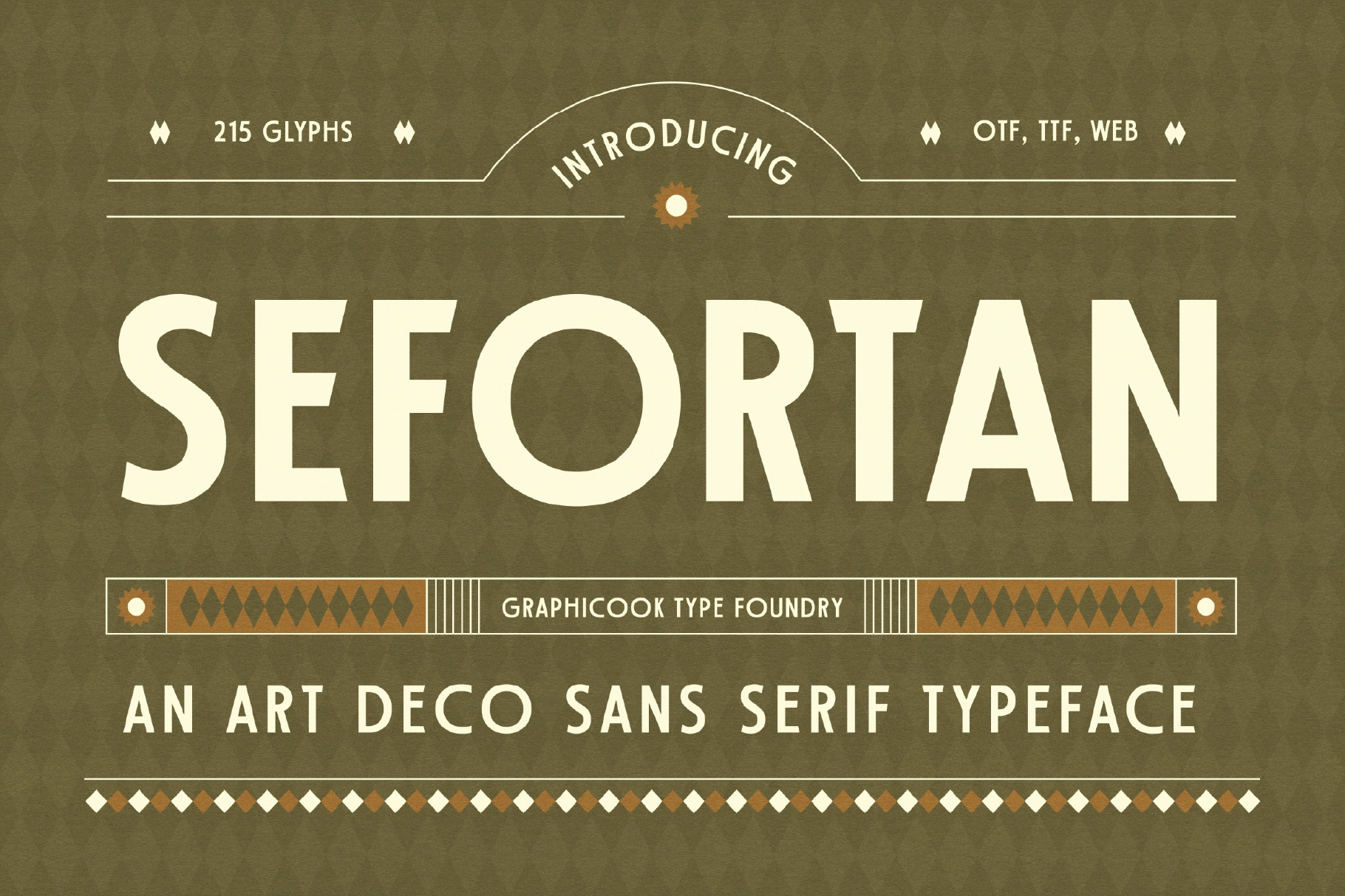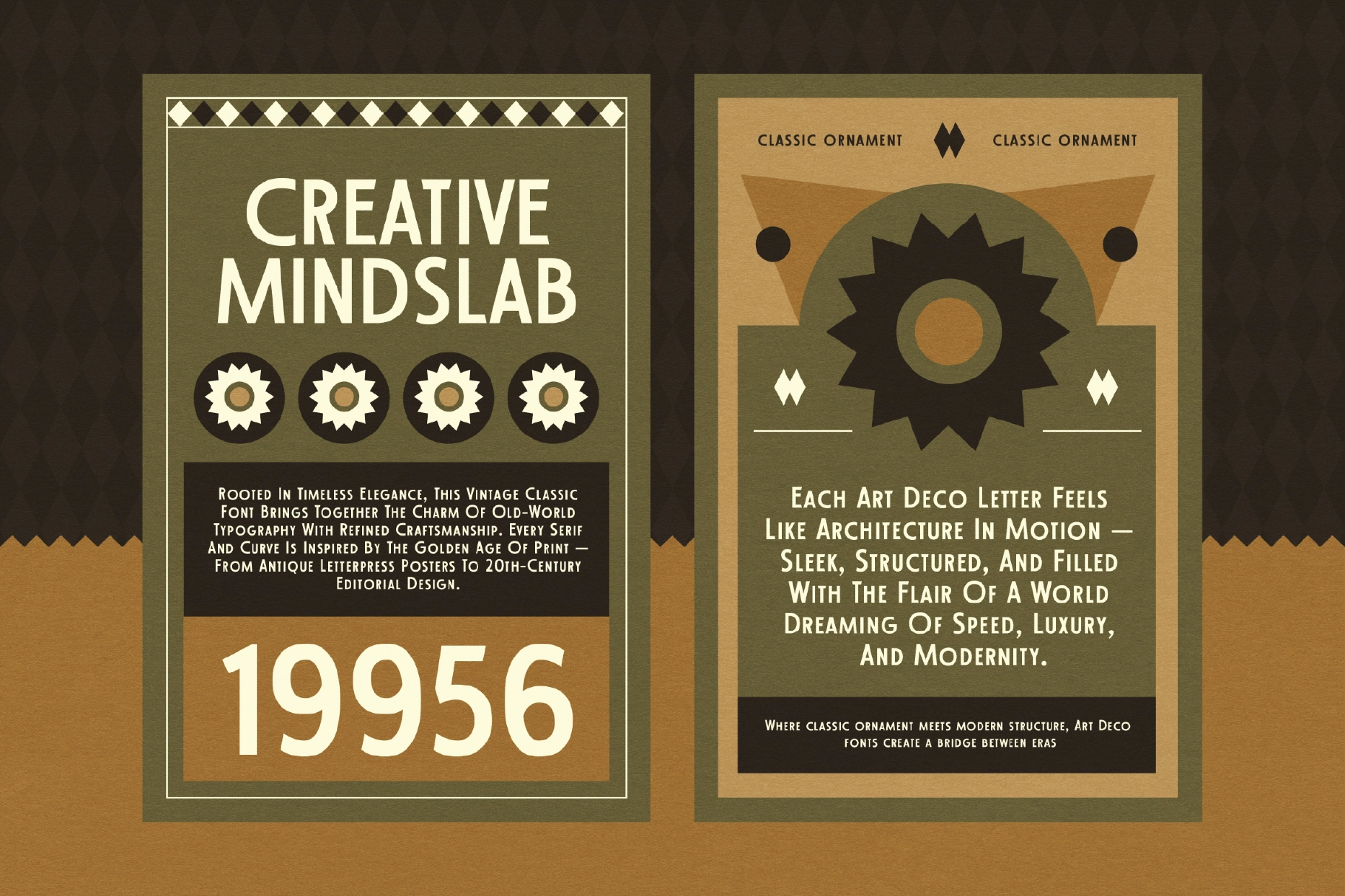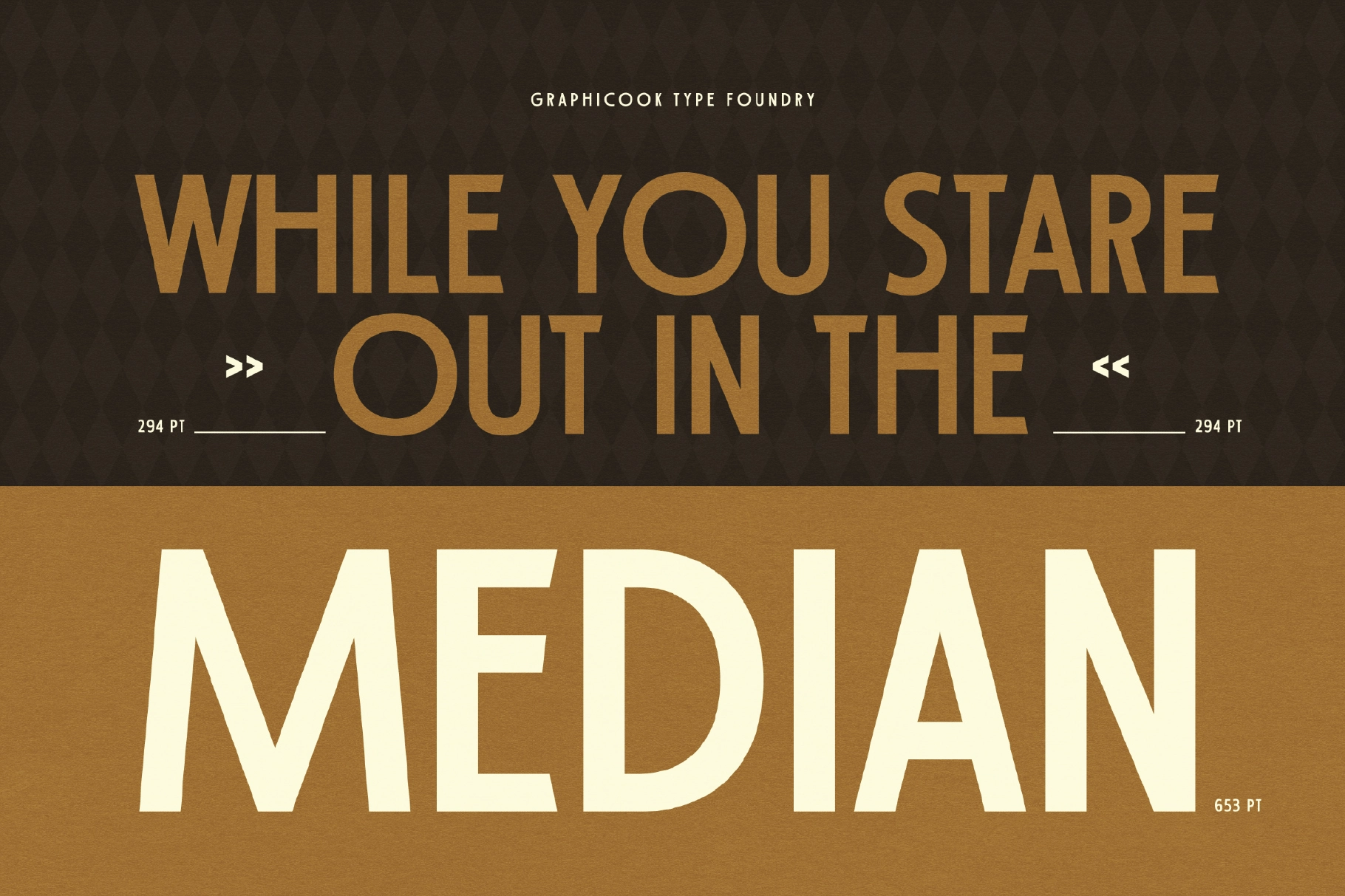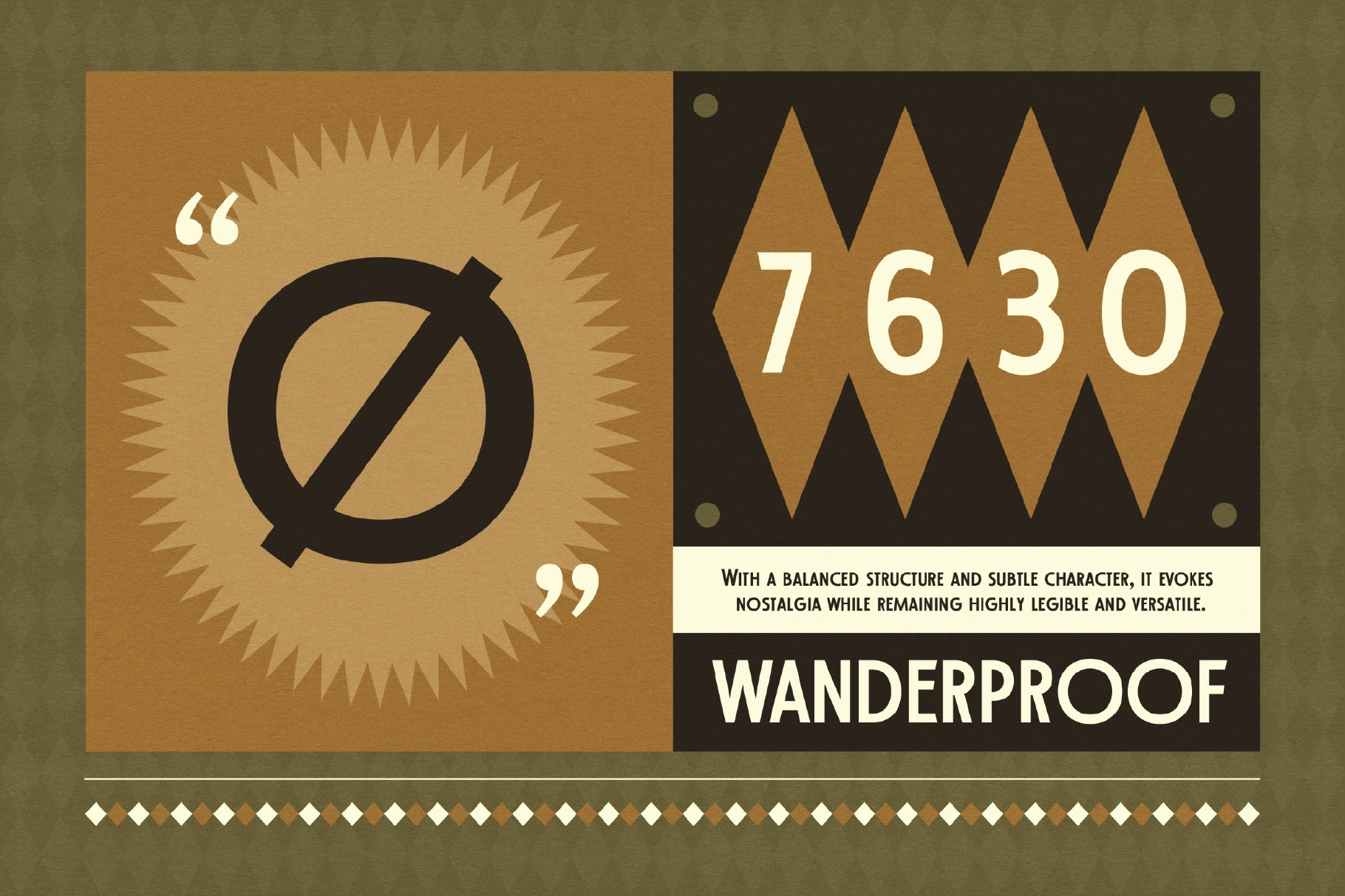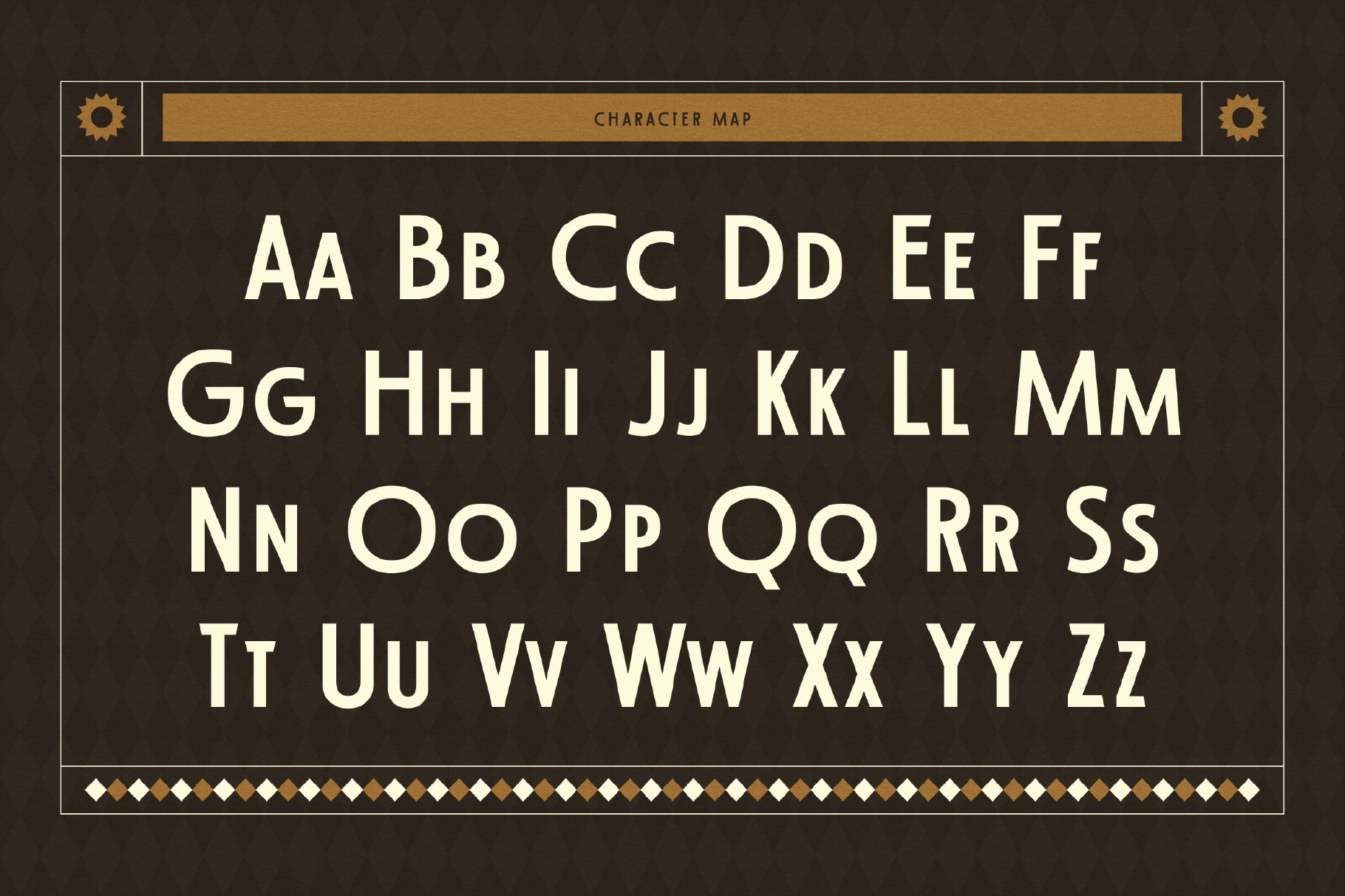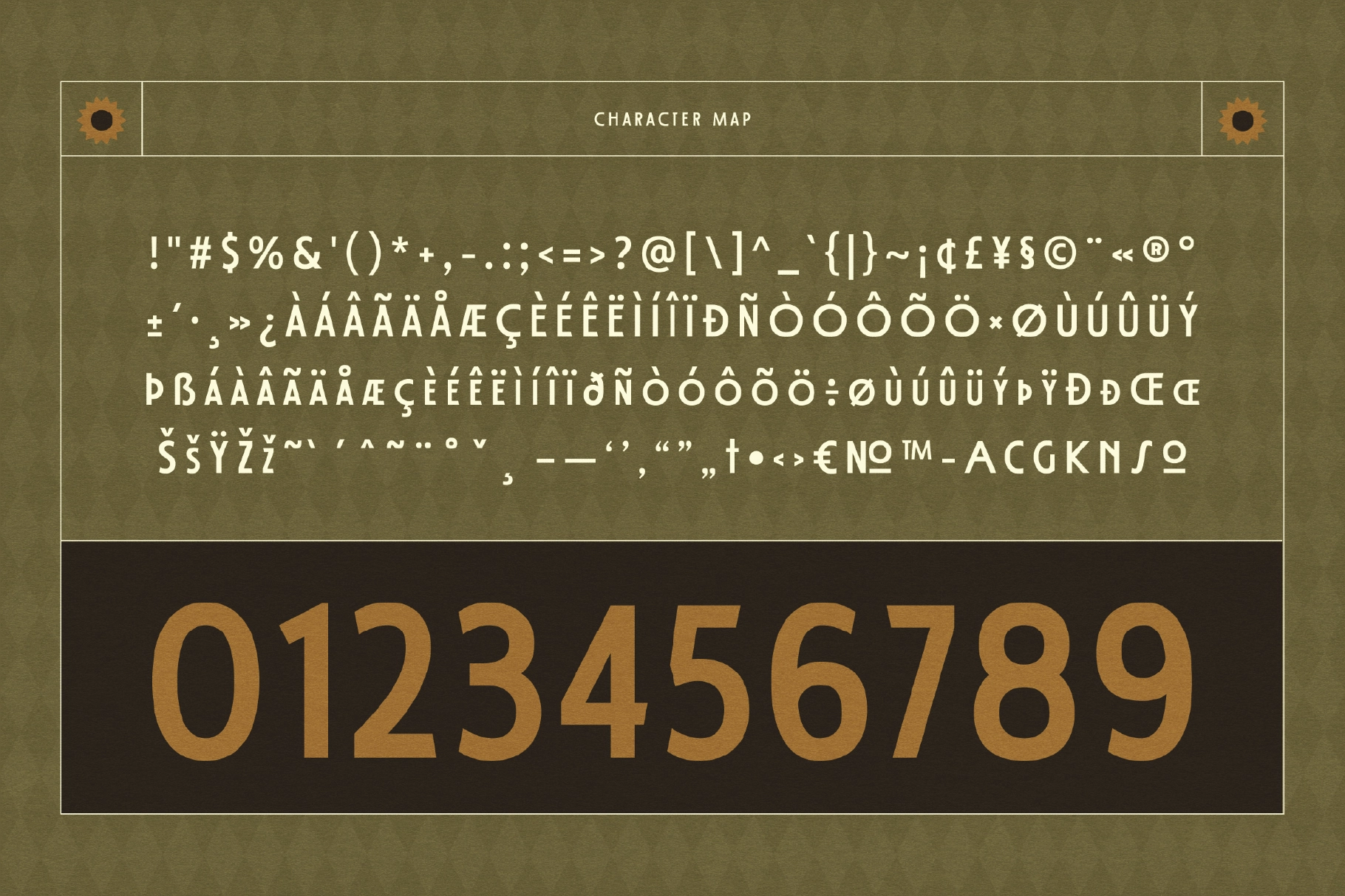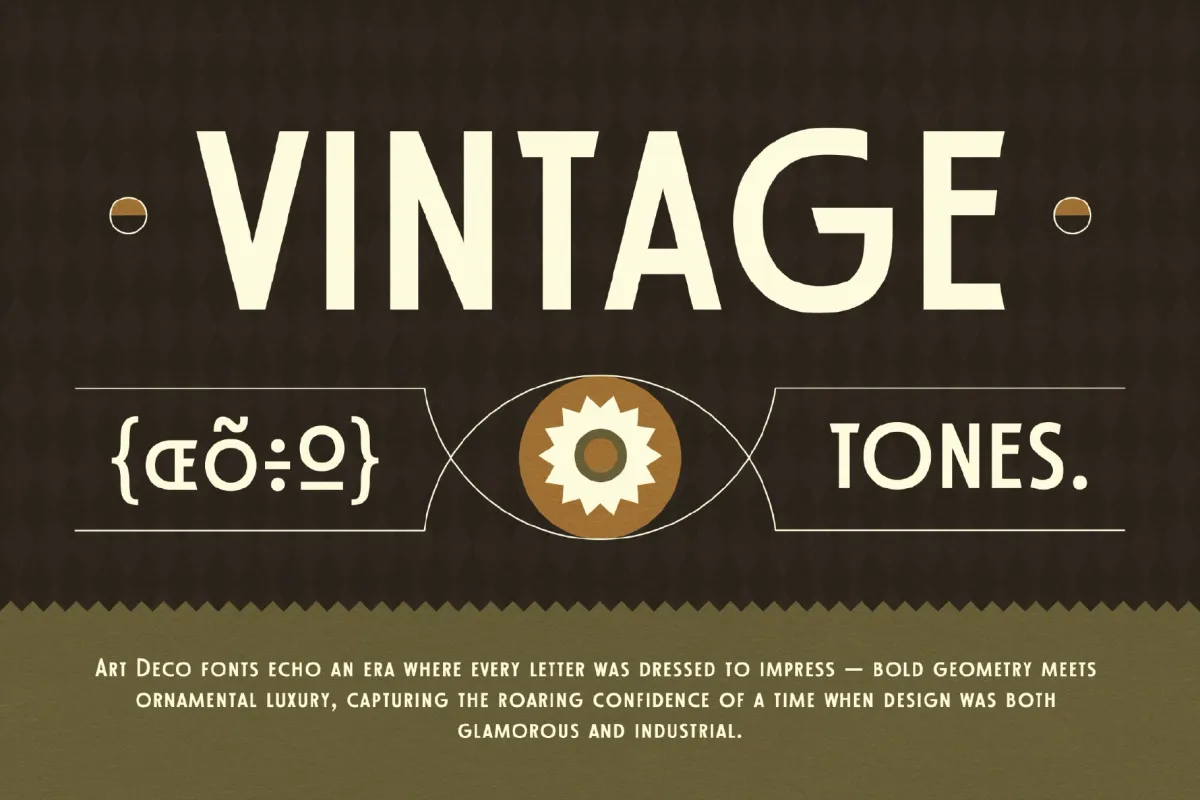
Sefortan
Sefortan is a bold sans serif font with a striking Art Deco influence, exuding luxury, symmetry, and timeless elegance. Great for vintage or classic branding, logos, and wedding invitation designs.